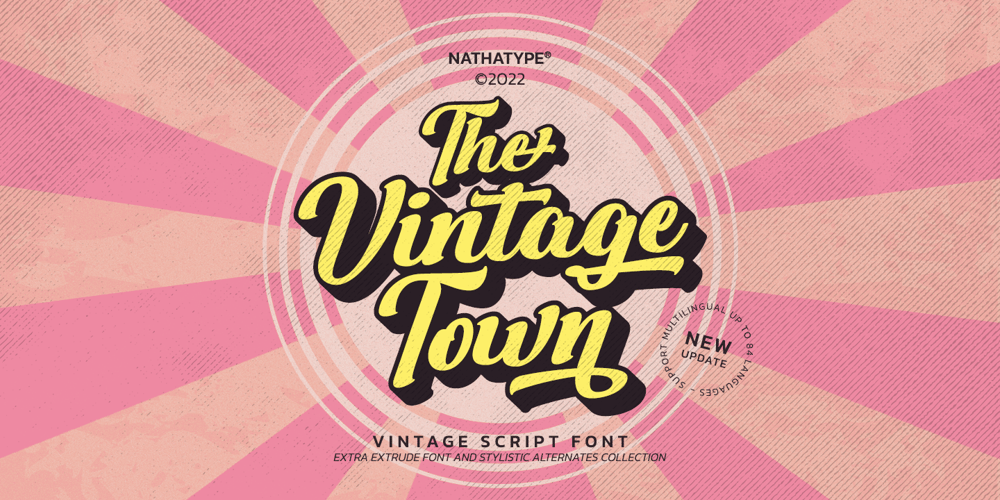
The Vintage Town Font Family was designed by Donis Miftahudin and published by Nathatype. The Vintage Town contains 2 styles and family package options. Looking for a font that will make your branding stand out? Do you sometimes have an appetite for a bit more wholesome typography? Looking for a fabulous, retro, and adventure font? We’ve got what you want.The Vintage Town- A Script FontThe Vintage Town is a script font that has a varied base line, fine lines, retro, and fun touches. This font features thick and angular letters that easy on the eyes and nice to look while it’s also easy to read. It is becomes more special with extruding version option. Fall in love with it’s authentic feel and use it to create gorgeous titles., beautiful poster designs, eye-catching social media posts, cute logos, and many more.Our font always includes Multilingual Support to make your branding reach a global audience. Features: Ligatures Stylistic Set Swashes PUA Encoded Numerals and Punctuation Thank you for downloading premium fonts from Natha Studio